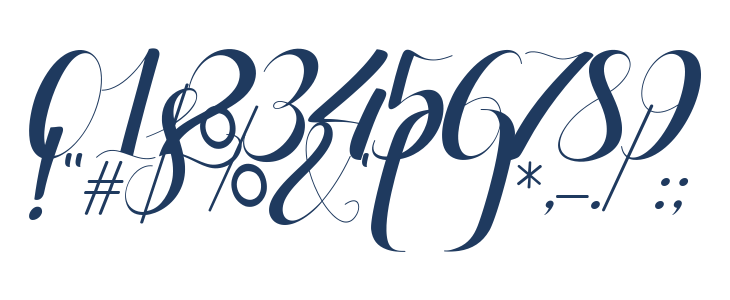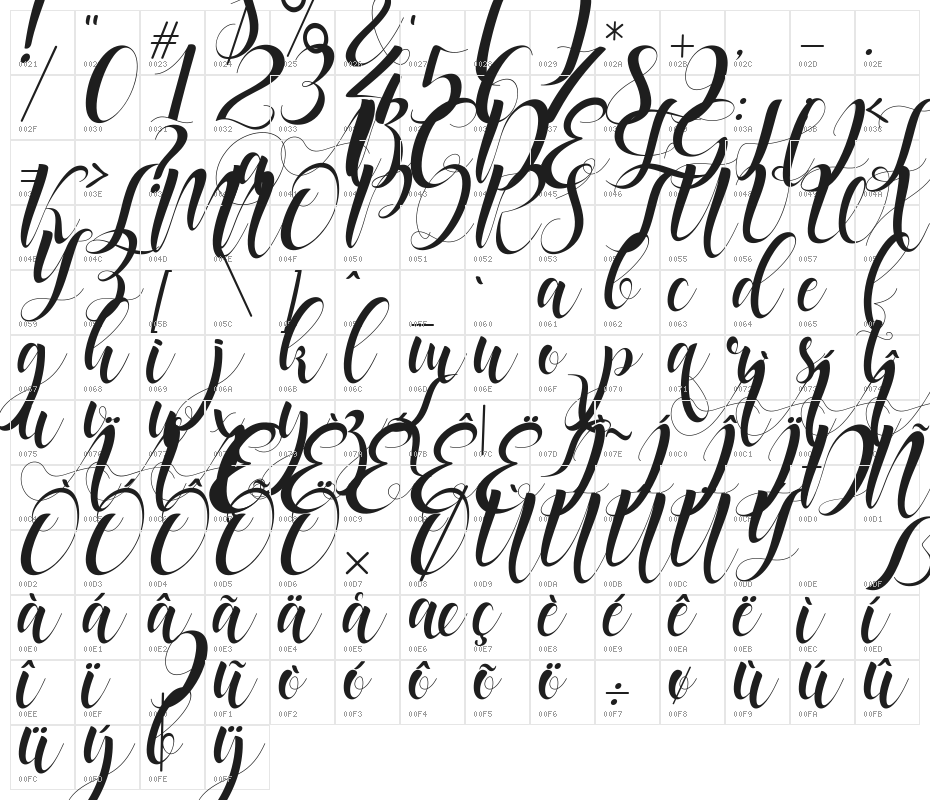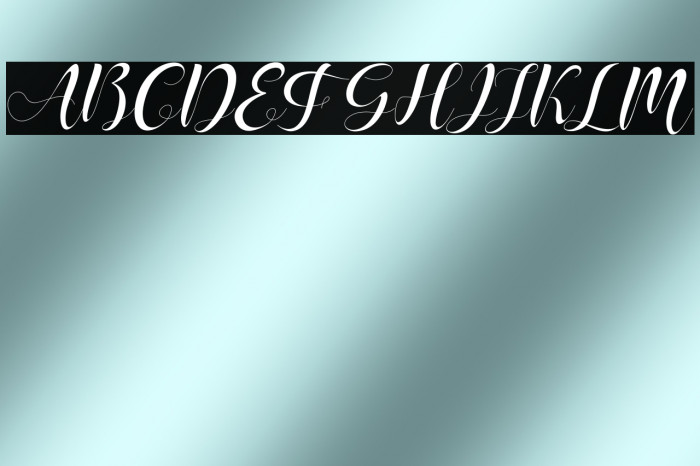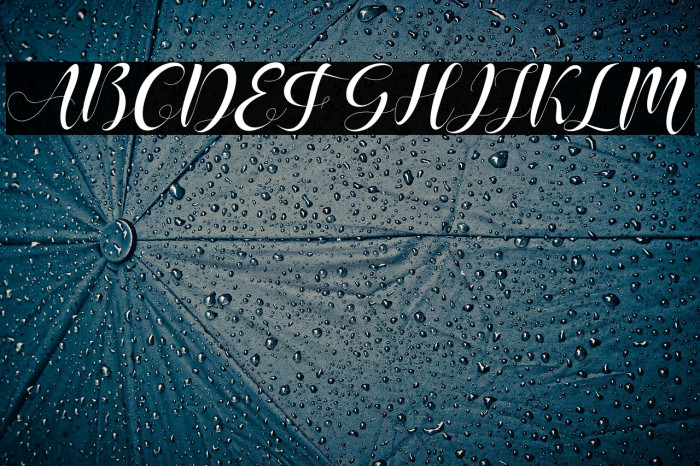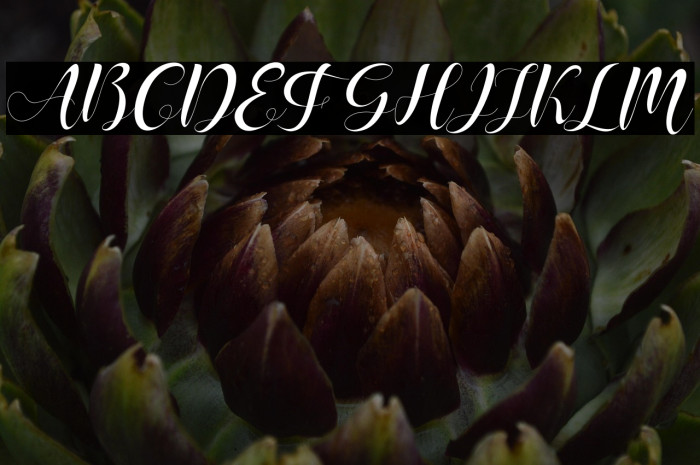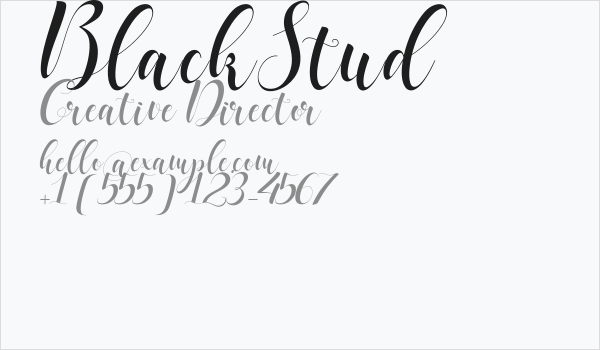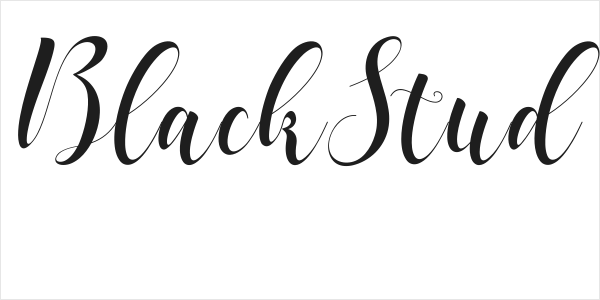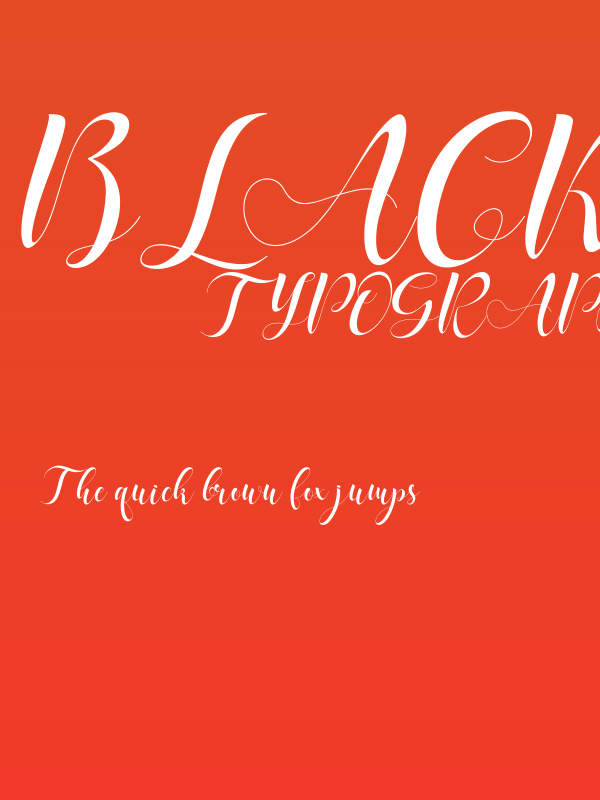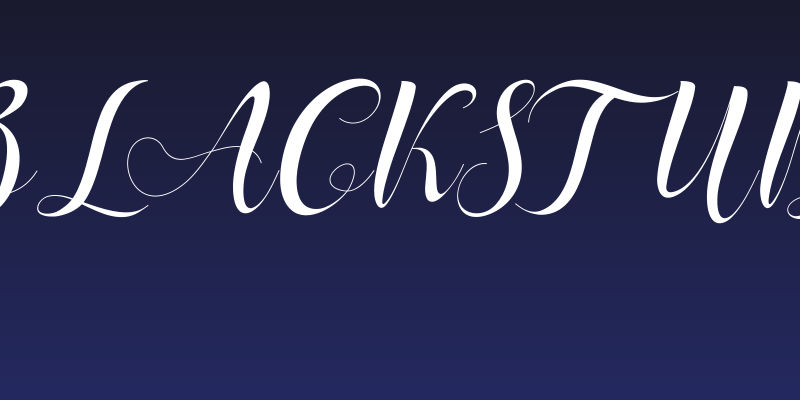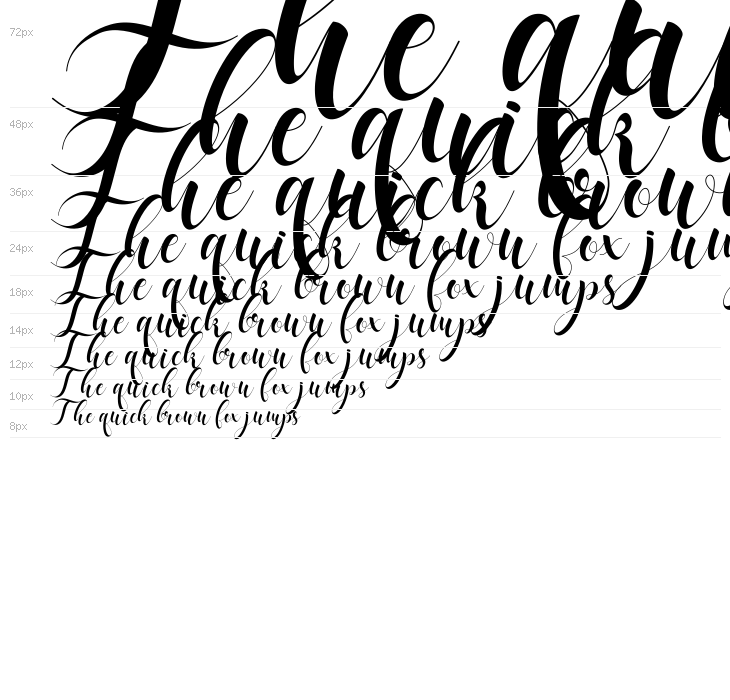
BlackStud Font
BlackStud Description
This font features an elegant and flowing script style, characterized by its graceful curves and intricate swashes. The uppercase letters are particularly ornate, with extended flourishes that add a touch of sophistication. The lowercase letters maintain a consistent style, offering a smooth and connected appearance that enhances readability while preserving the decorative nature. The numerals are bold and stylish, complementing the overall aesthetic. Special characters are designed with the same attention to detail, ensuring a cohesive look across all elements. This font exudes a sense of luxury and refinement, making it ideal for projects that require a touch of elegance.
Overall StyleElegant
Use CaseLogos, Invitations, Decorative text
Proposed ProjectsWedding invitations, luxury branding, elegant packaging, greeting cards, and high-end product labels.